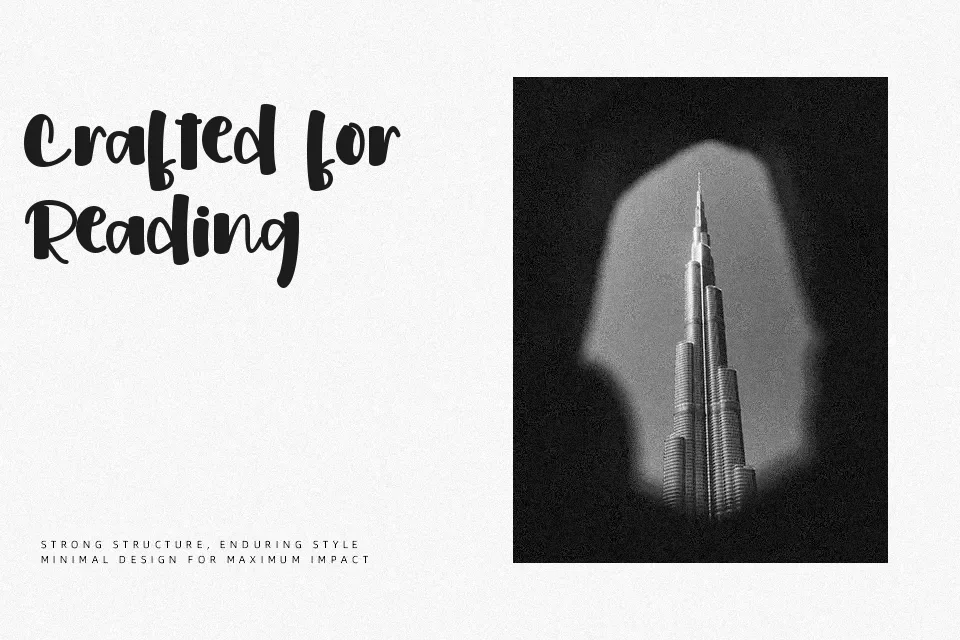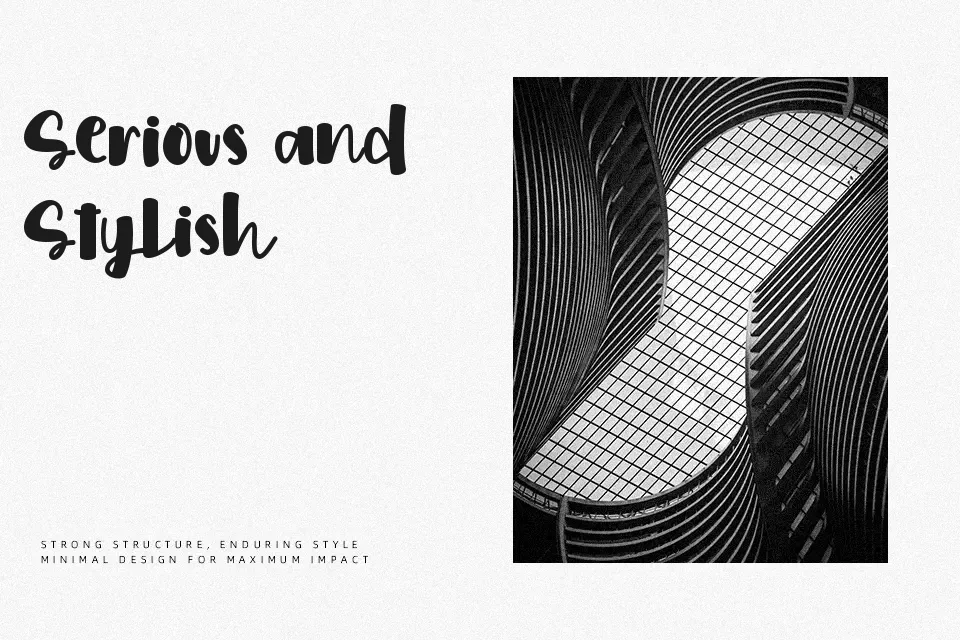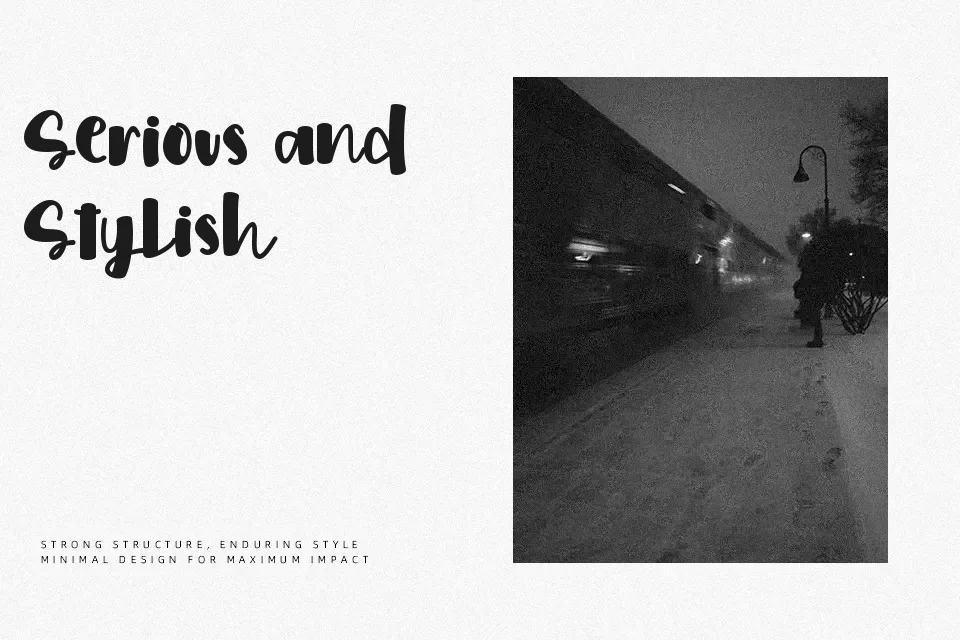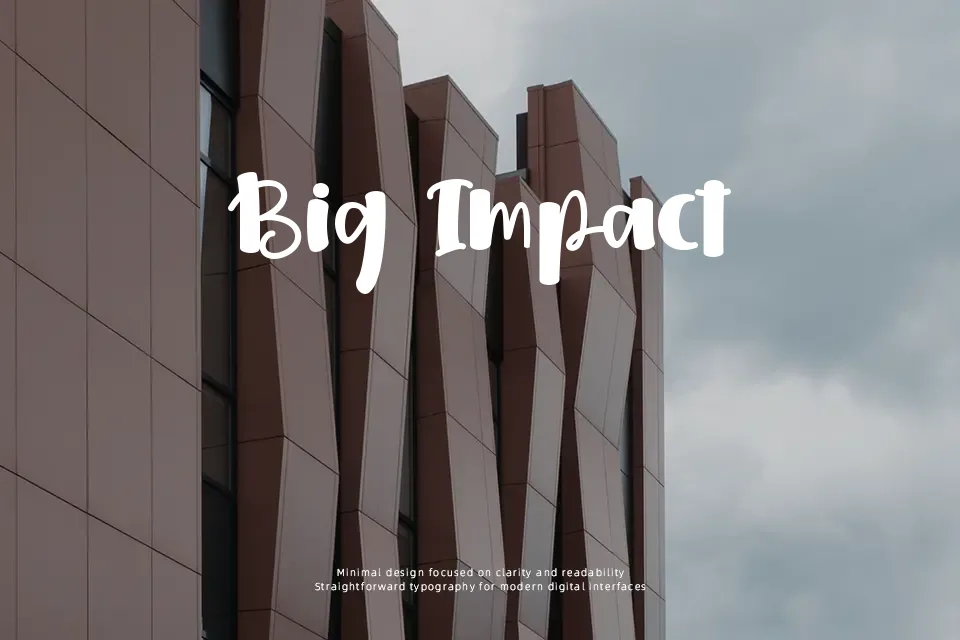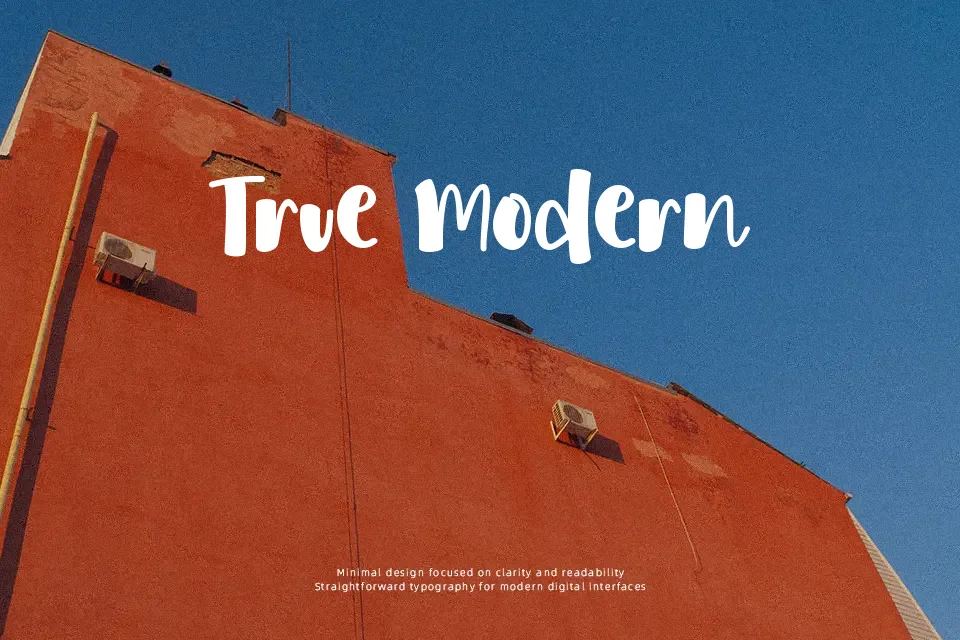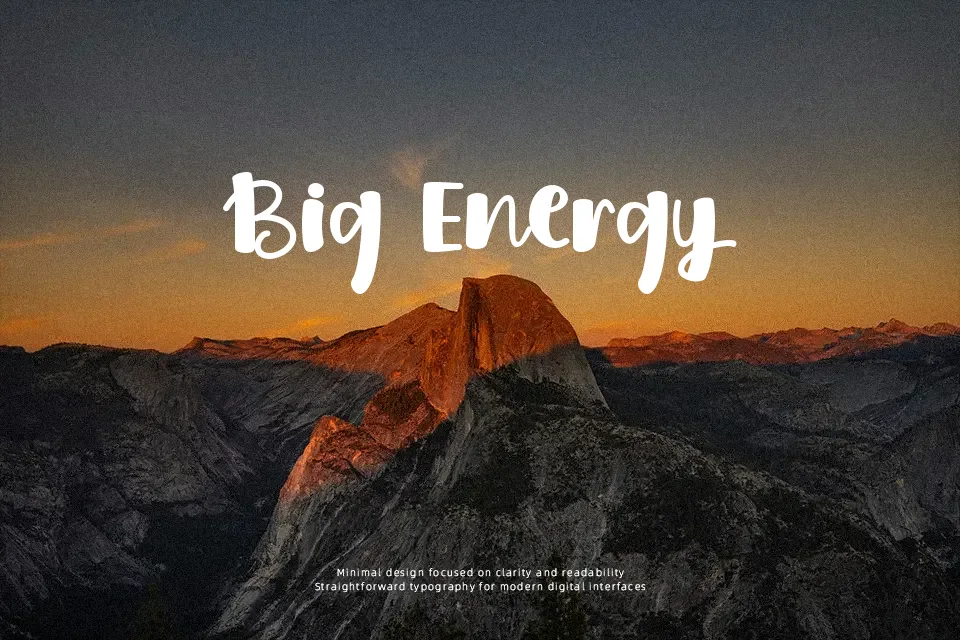
Sweet Aloha Font
Built with heavy, animated strokes and smooth softened terminals, Sweet Aloha Font delivers an informal and energetic visual presence across display layouts. The letterforms display modest stroke contrast paired with generous internal counters, helping characters remain legible even with their quirky, asymmetrical construction. Moderate letter spacing gives titles room to breathe on summer event banners, casual apparel graphics, and merchandise packaging. The heavy weight ensures striking visibility from a distance, though the informal structure makes the design less suitable for continuous body copy or small interface labels. At larger scales, the typeface brings an unmistakable handcrafted warmth to lively display settings.
Best For: children’s book covers, summer event flyers, casual apparel prints, snack food packaging
Not Ideal For: continuous editorial paragraphs, corporate financial reports, technical documentation, small mobile interface text
Perfect for advertising, headline, and kids, with a creative and cartoon style.